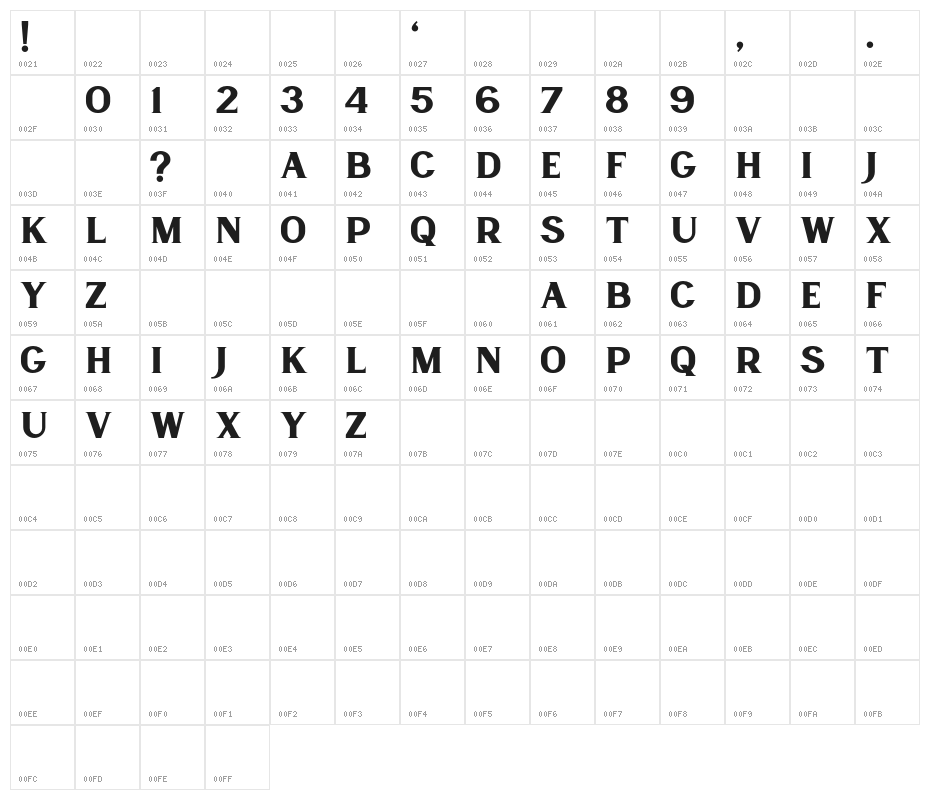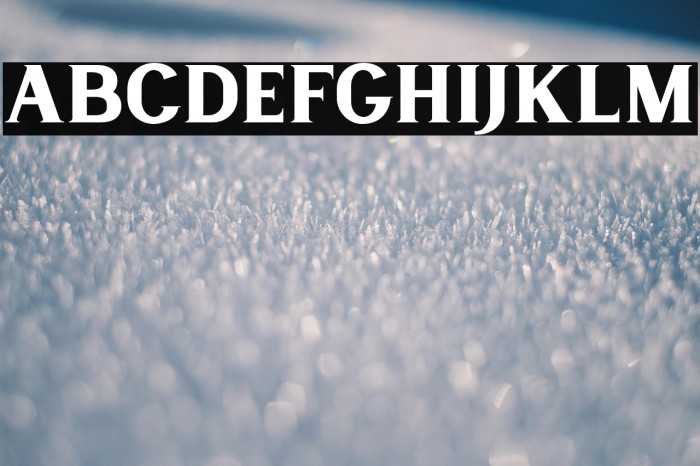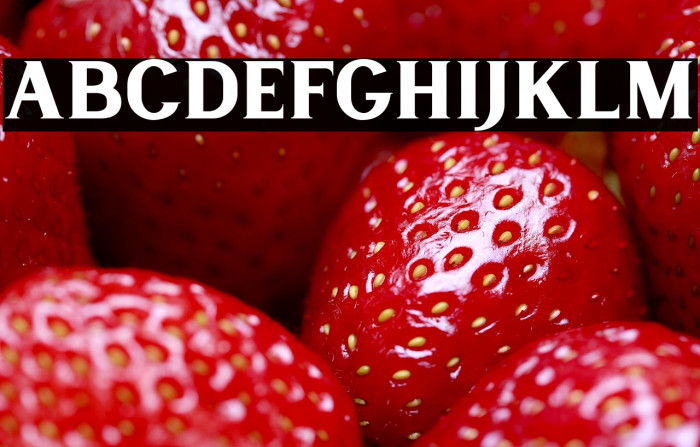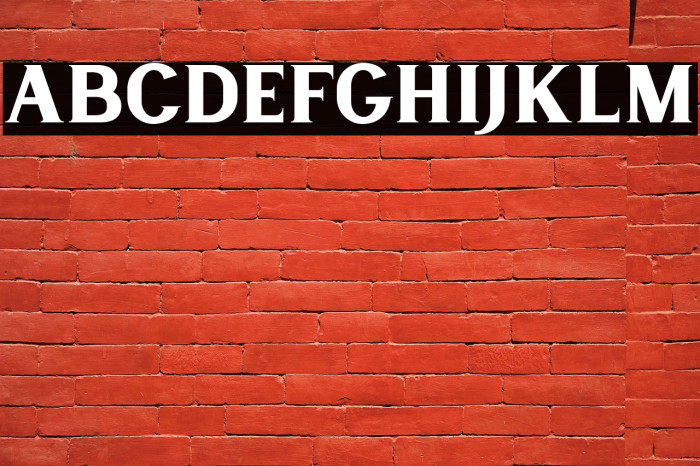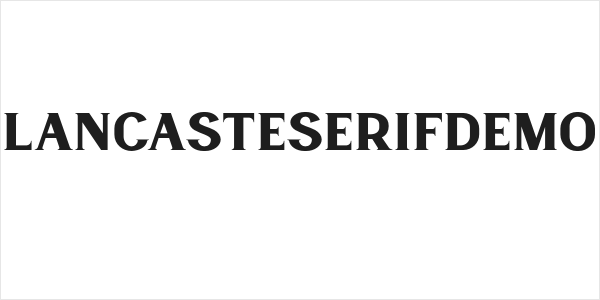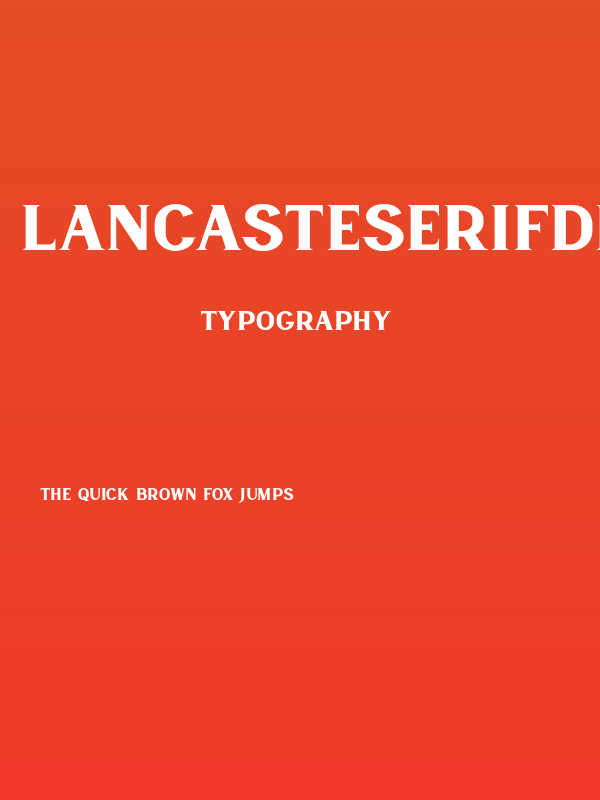
LancasteSerifDemo Font
LancasteSerifDemo Description
This font exudes a classic and authoritative presence with its bold and strong serif design. The characters are well-defined with sharp serifs that enhance readability and add a touch of elegance. The uppercase letters are particularly striking, with a commanding presence that makes them ideal for headlines and titles. The numbers are equally bold, ensuring clarity and impact. The overall style is reminiscent of traditional print, making it suitable for projects that require a sense of history and reliability. The spacing between characters is normal, providing a balanced and cohesive look.
| Proposed Projects | Ideal for book covers, editorial design, formal invitations, and corporate branding. |